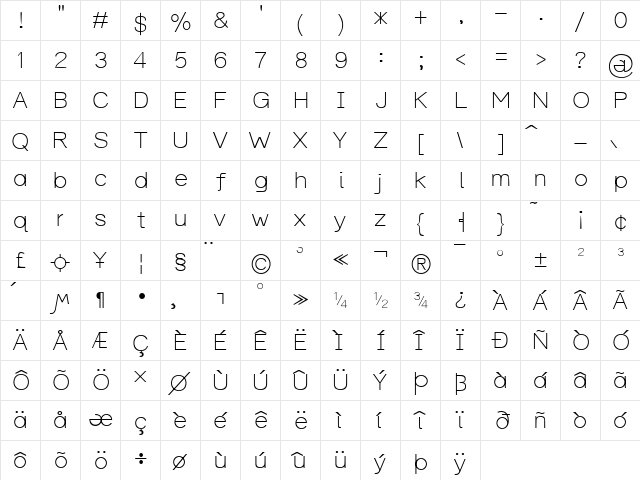
aAvarangal Regular
| Designer | Sinnathurai Srivas |
Design Context for aAvarangal Typeface
aAvarangal offers clean, dependable letterforms without strong stylistic allegiance, making it a practical choice for designers who need flexibility.